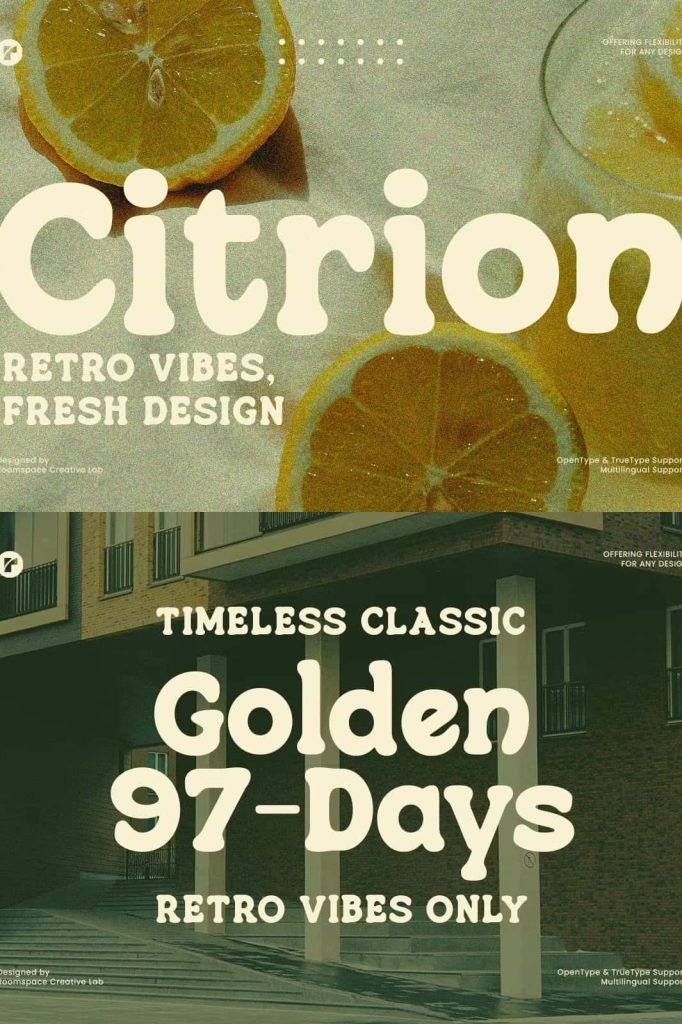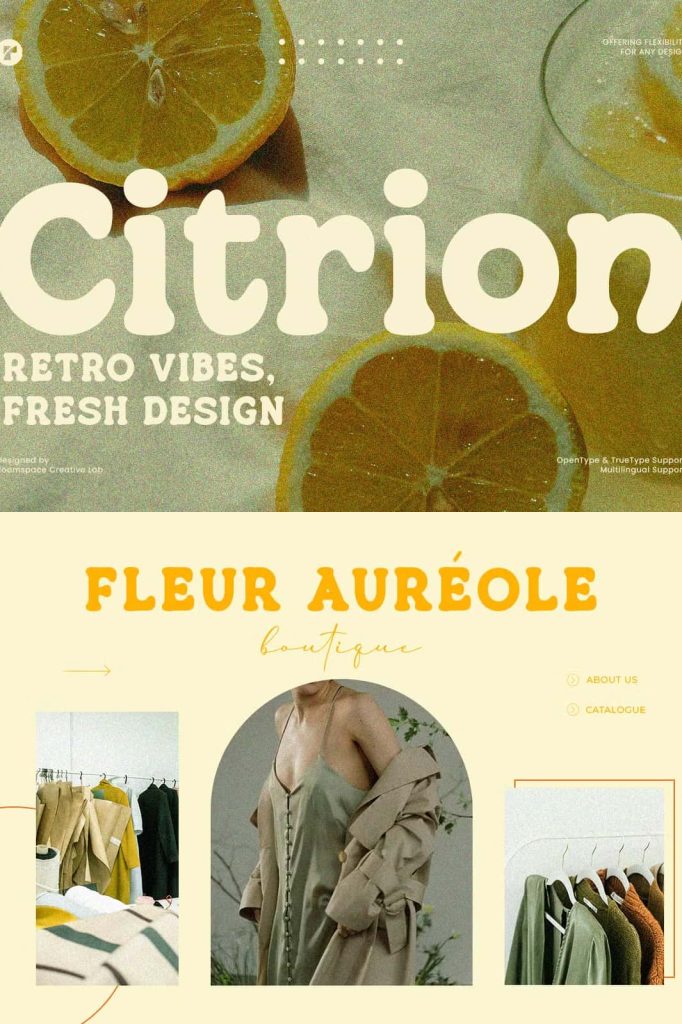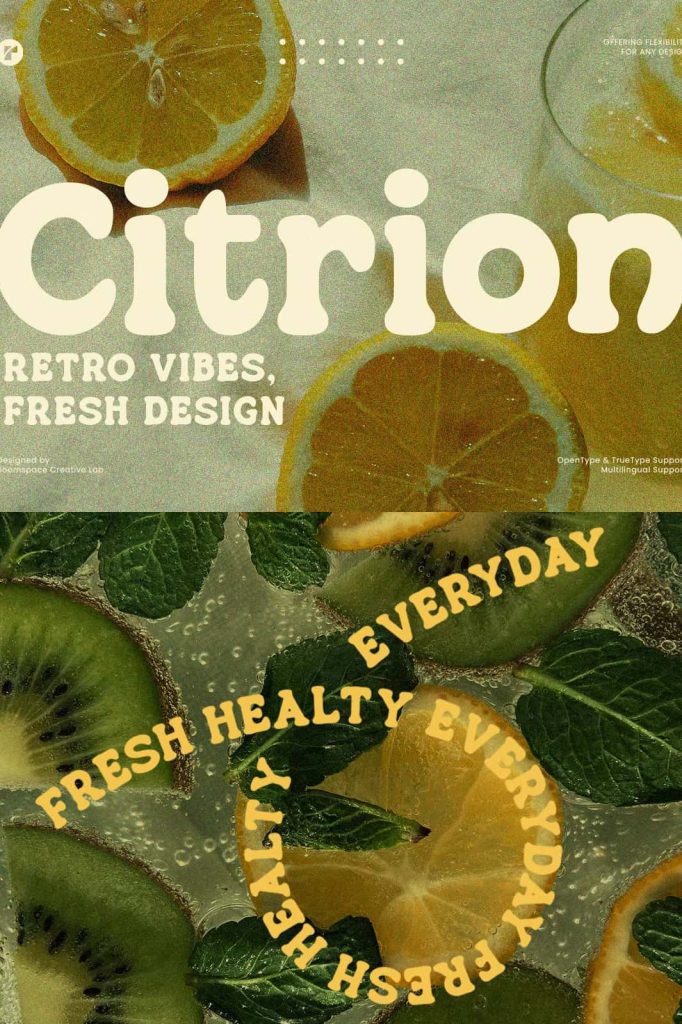
Retro Vibes Rounded Serif – CitrionleastedFebruary 10, 2025Fonts Retro Vibes Rounded Serif – Citrion is a bold and playful typeface that brings retro aesthetics to life with a modern twist. Download